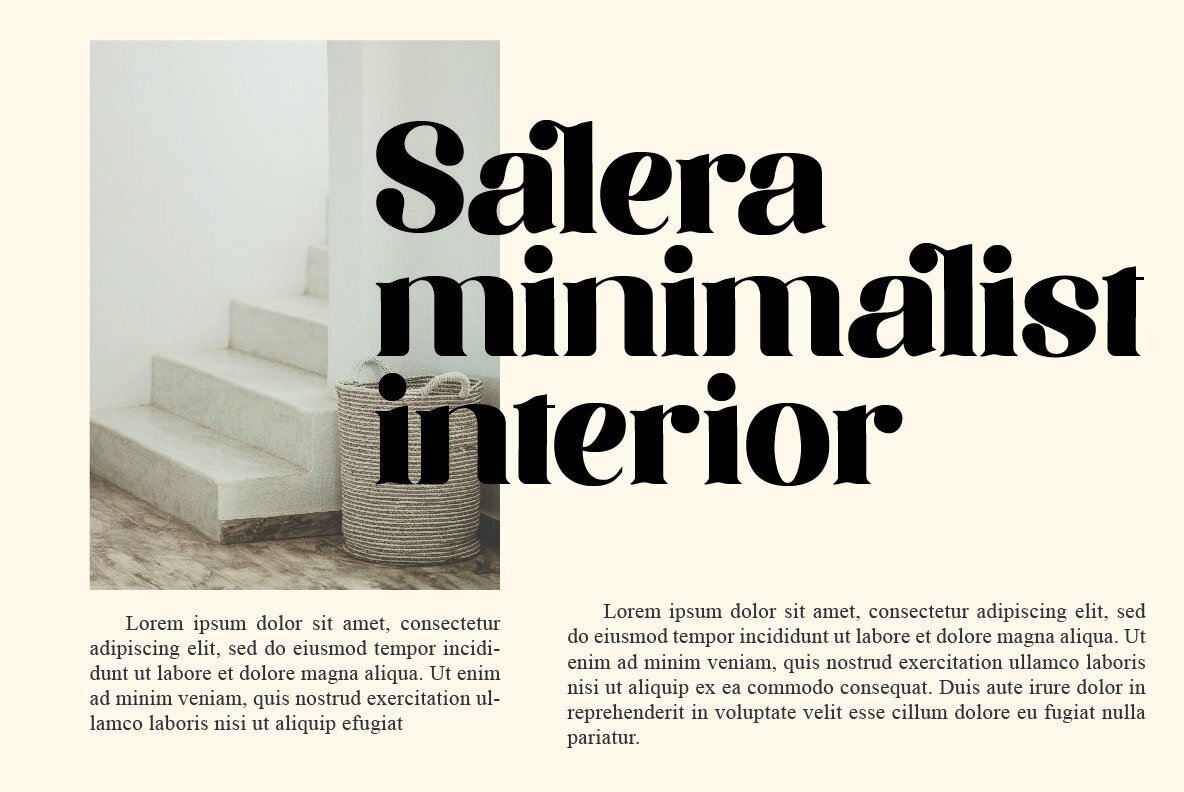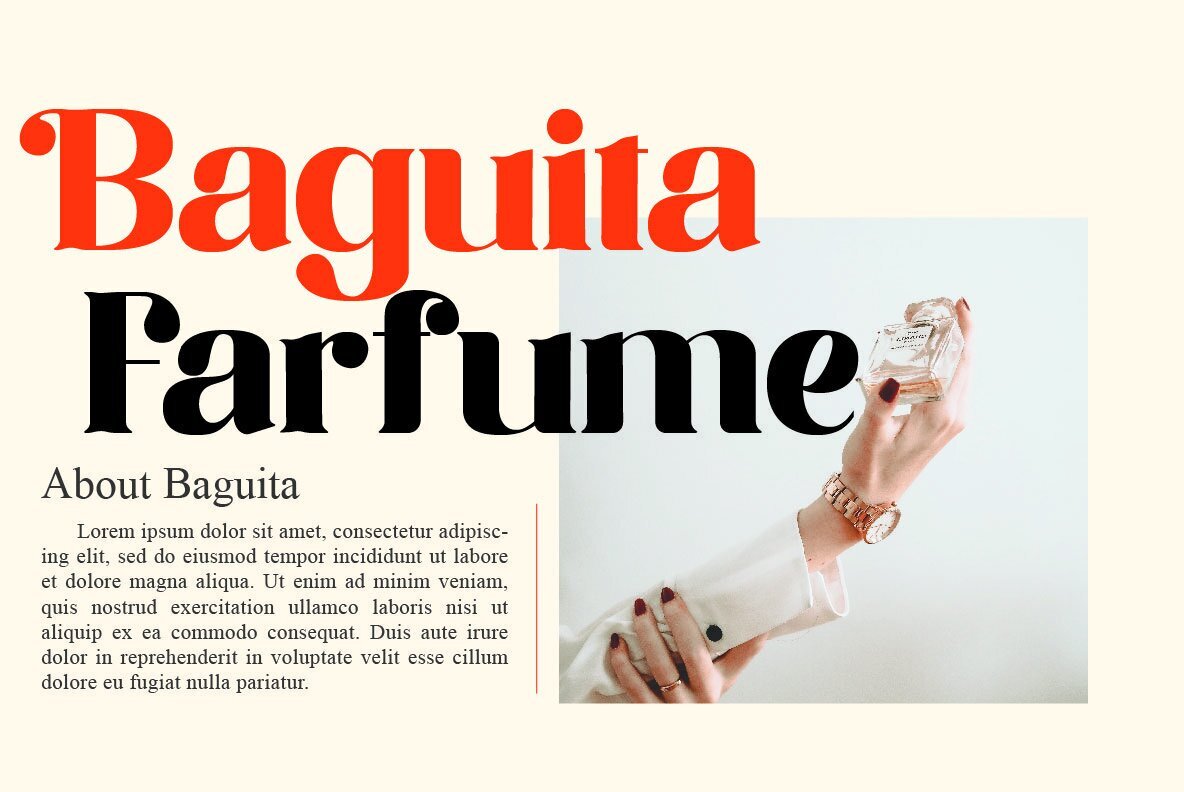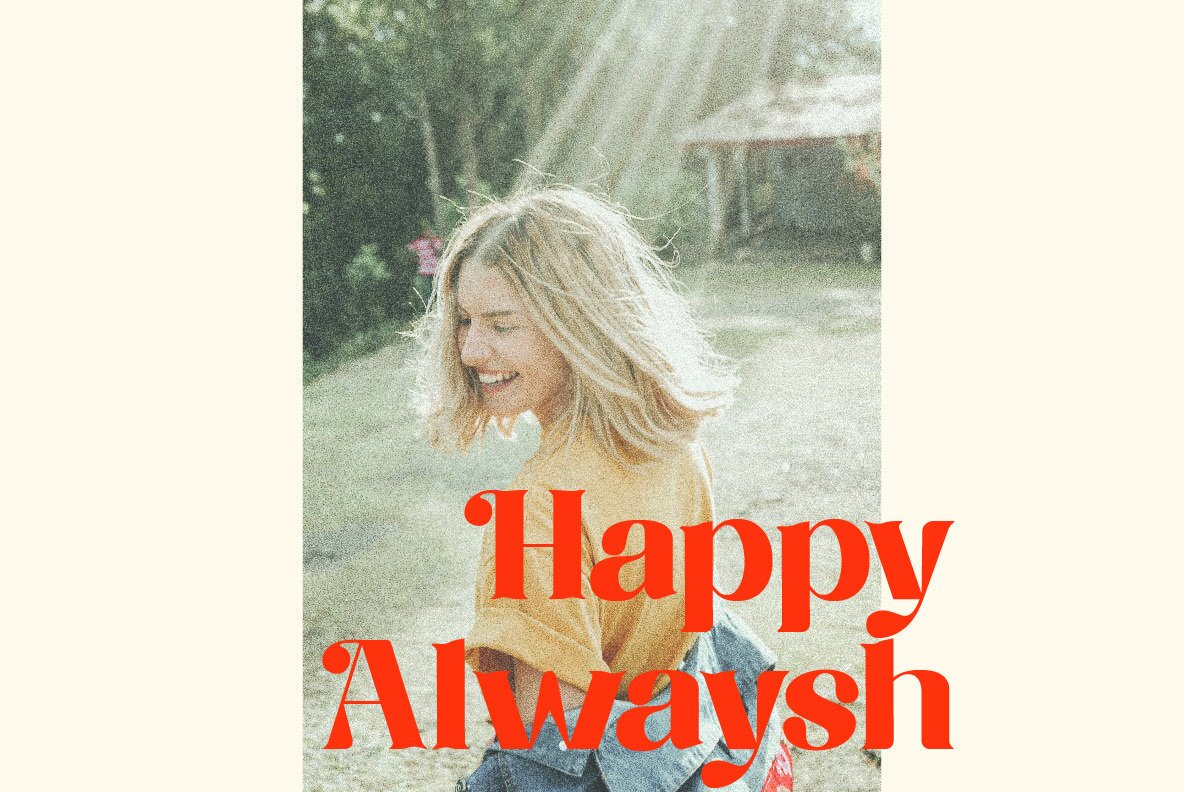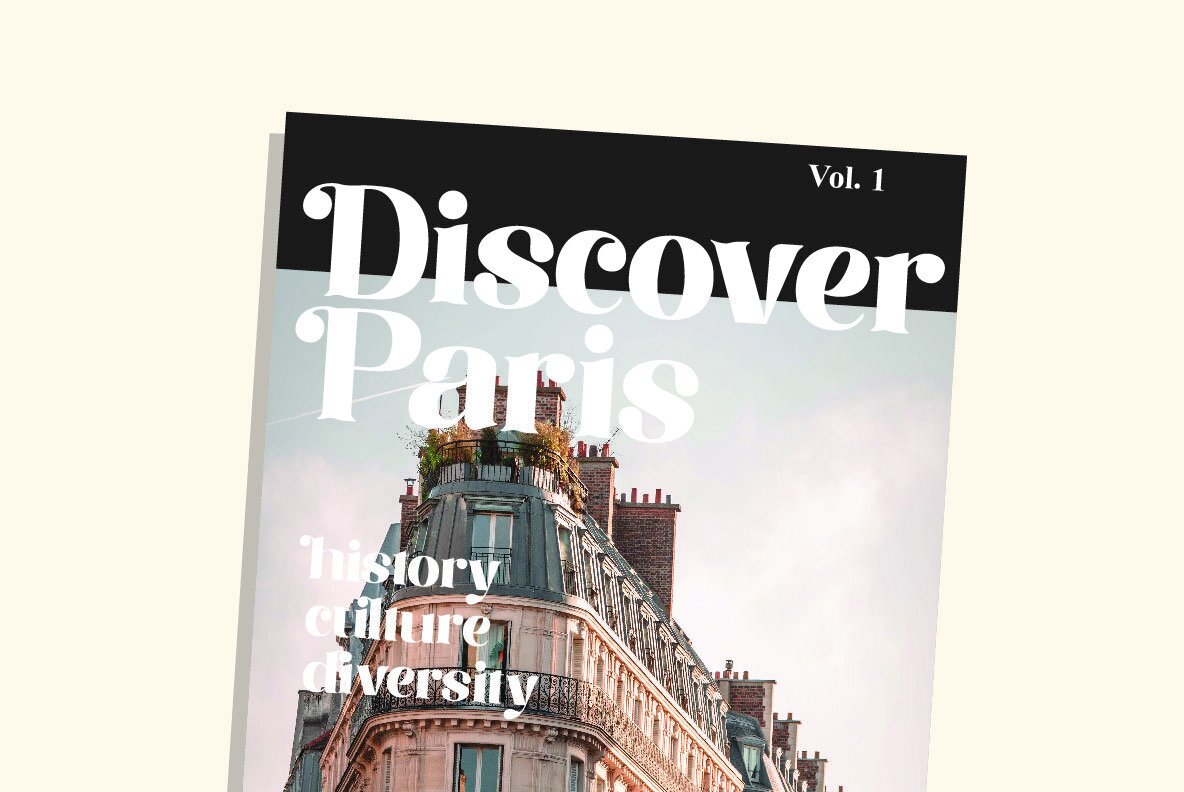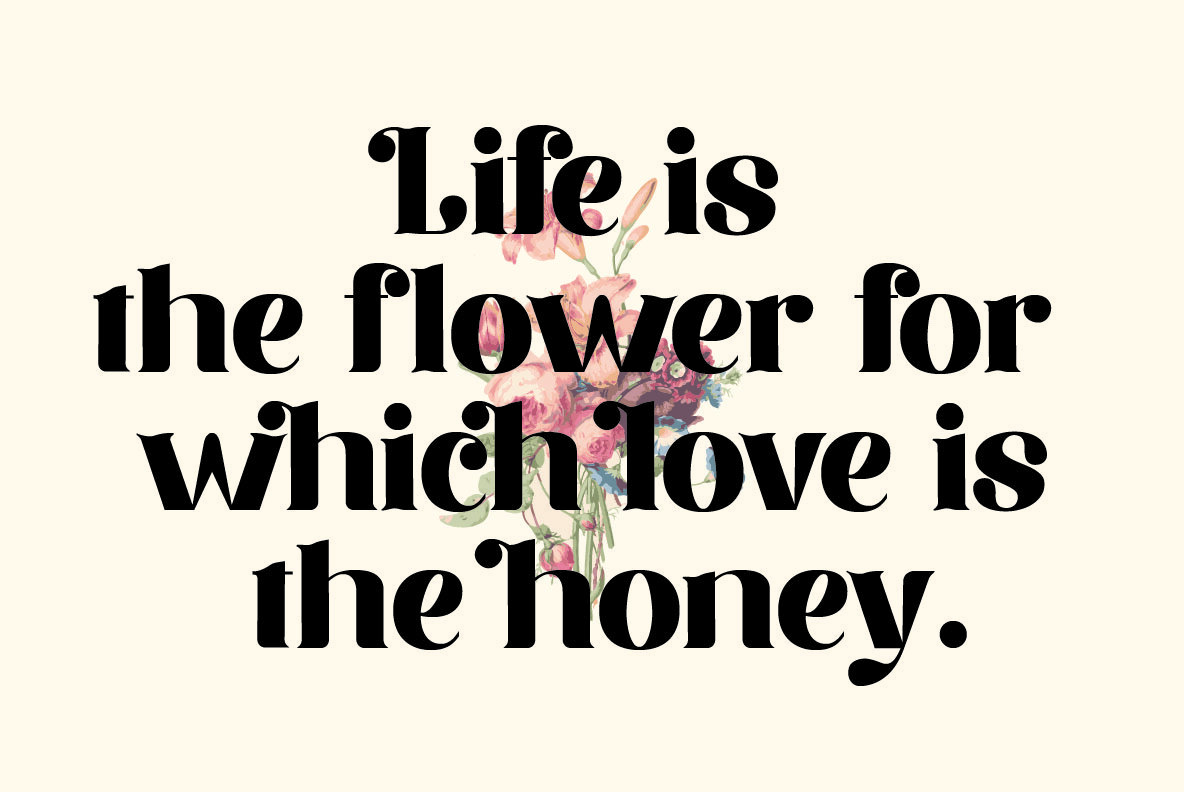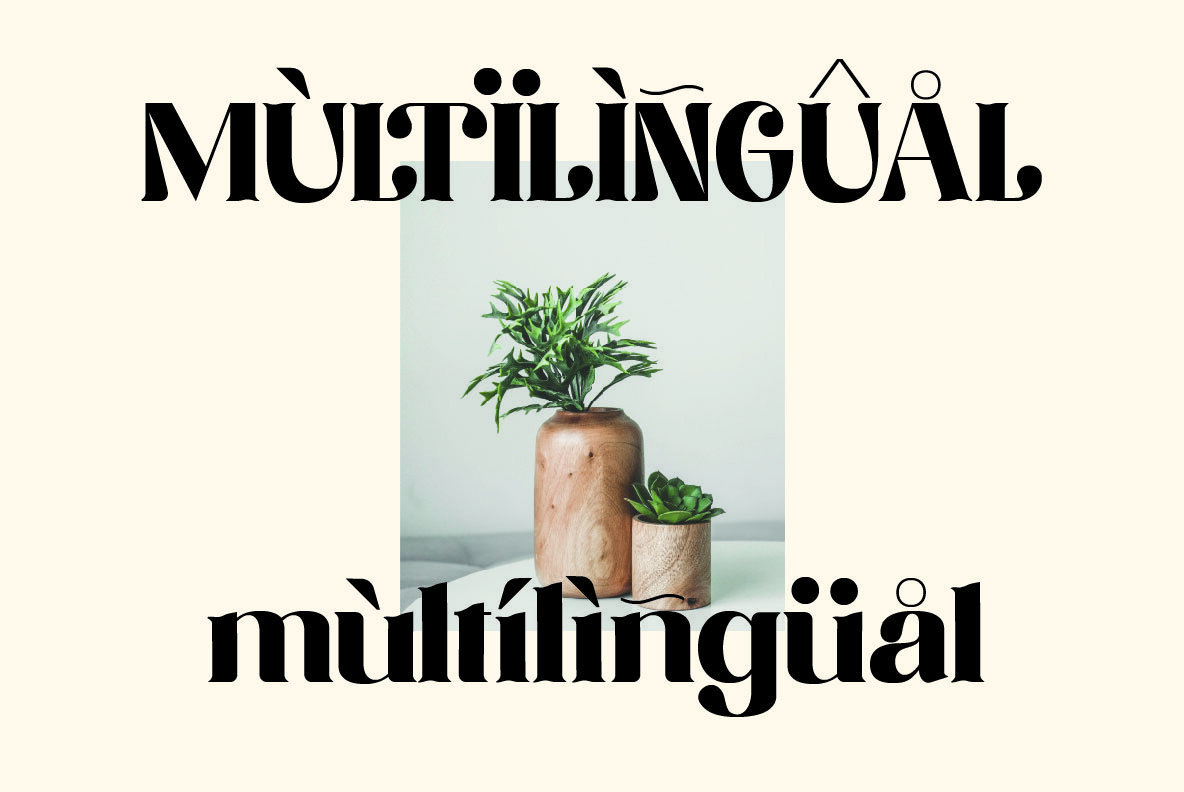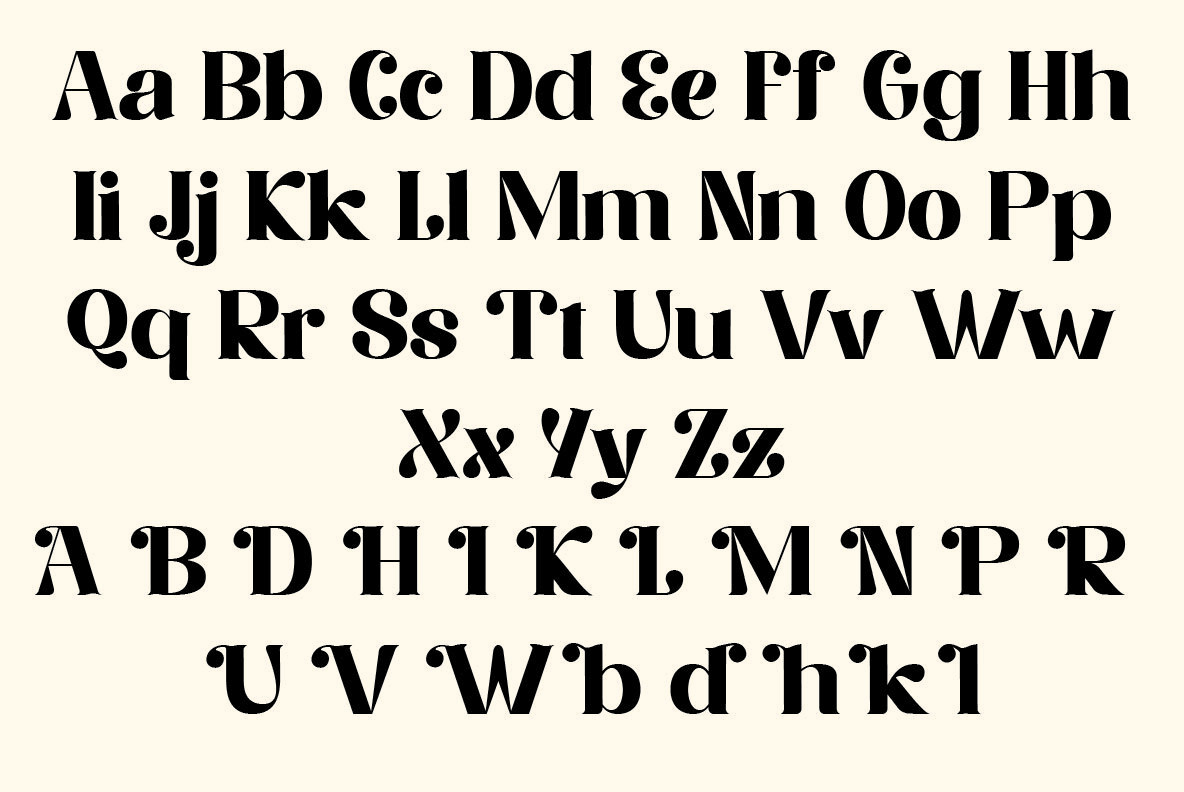
Merdian Font
Merdian Bold
Elevate your design projects with Merdian, a modern serif typeface that combines boldness with refined elegance. Featuring beautiful alternates and special glyphs, this typeface brings both style and sophistication, making it the perfect choice for editorial projects, logo design, clothing branding, product packaging, and magazine headers. Its adaptability allows it to create stunning visual impact in both large and small sizes. Features:Merdian: A Versatile Bold Serif Typeface